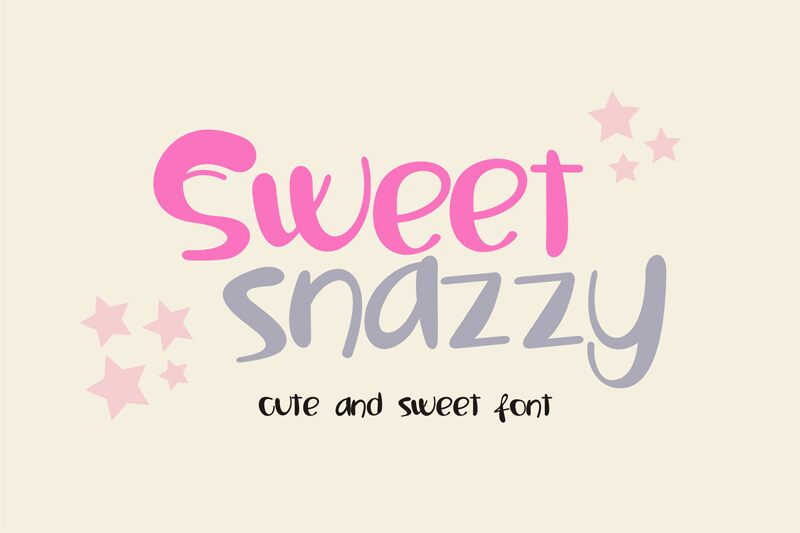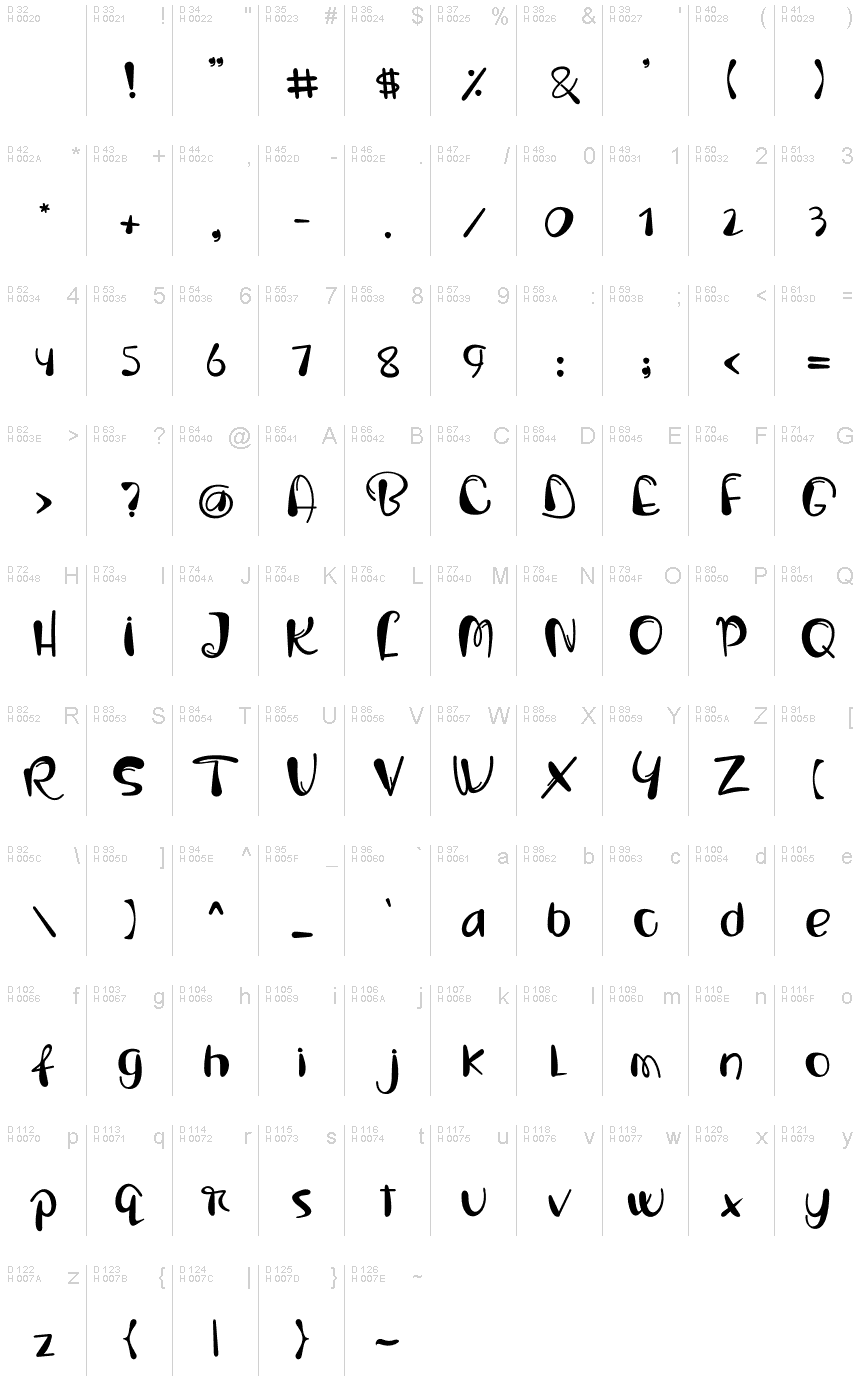
sweet snazzy
Introducing Sweet Snazzy, a display font designed by ISNAYONO with a fun and playful cartoon style. Perfect for creating eye-catching logos, fun illustrations, and comic book covers!